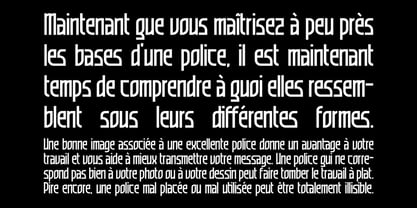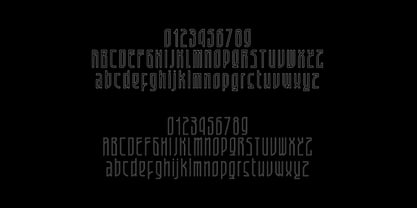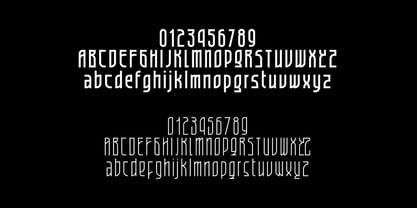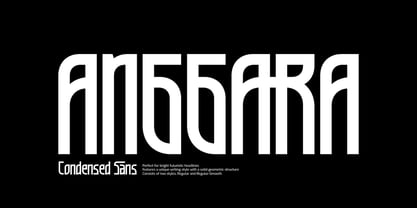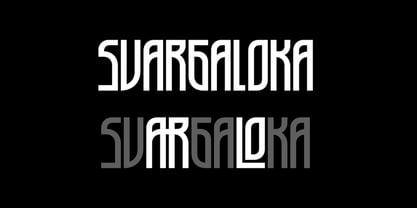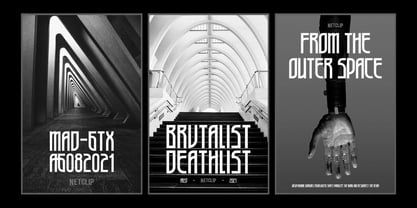
Anggara
by Juru Rancang Studio
The Anggara Font Family was designed by Ihsan Khairul Lazuardi and published by Juru Rancang Studio. Anggara contains 4 styles and family package options. More about this family
Introducing, Anggara, a unique futuristic modular font, the name is taken from Sanskrit अङ्गार (aṅgāra, “Mangala, god of war”) that ispires us to make type form that feels superior and intimidating with a simple element based font with unique lowercase and ligatures that will make your design looks futuristic and modern.
You can use this font for any purpose, especially to make logotype. You can mix and match the uppercase and lowercase to make your logo more readable. This font also have special alternates that will make your design more stand-out!
Designers: Ihsan Khairul Lazuardi
Foundry: Juru Rancang Studio
Juru Rancang Studio is the independent type foundry of Indonesian designer Ihsan Khairul Lazuardi, born and based in Bandung. With a strong academic background in visual communication design and years of professional practice, he develops typefaces that merge experimental approaches with cultural heritage. His works frequently reference Sundanese and Sanskrit traditions, reflecting local identity while engaging with contemporary design language.